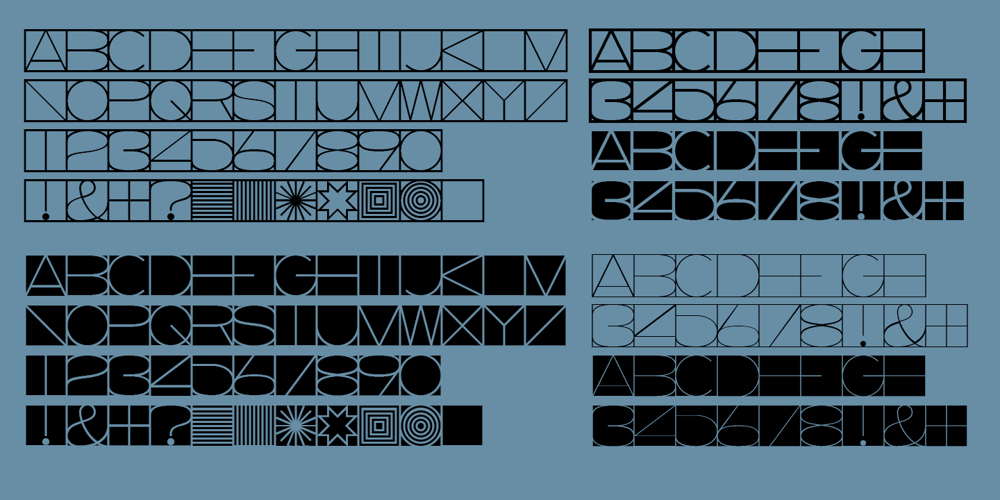
PIXymbols Squared
PIXymbols Squared font
PIXymbols Squared Font Family was designed by Roger Vershen and published by Page Studio Graphics. PIXymbols Squared contains 3 styles and family package options. A package of three display fonts featuring numerals, a capital alphabet and decorative symbols, constrained within square borders. Light, normal and bold versions, in both positive and reverse format, are included.